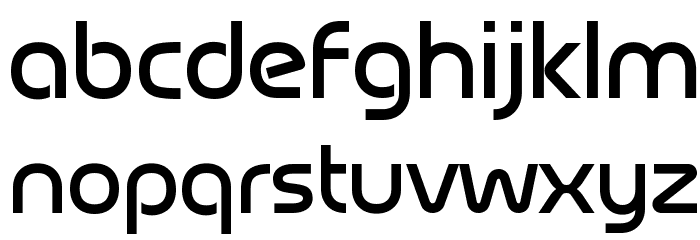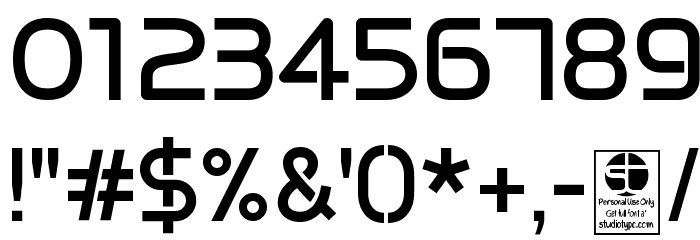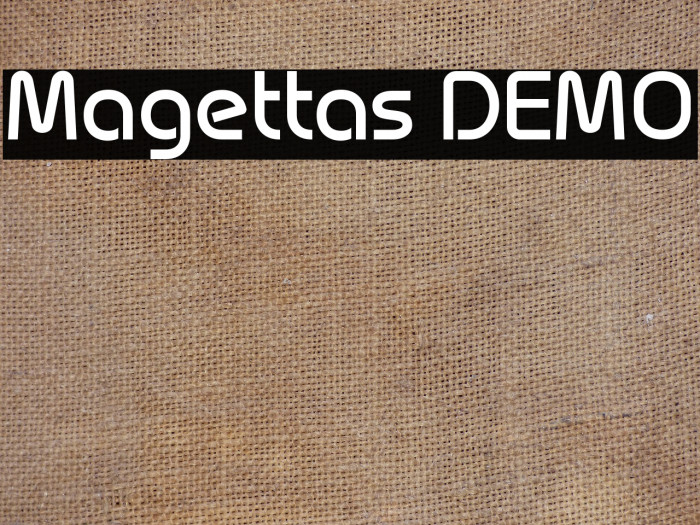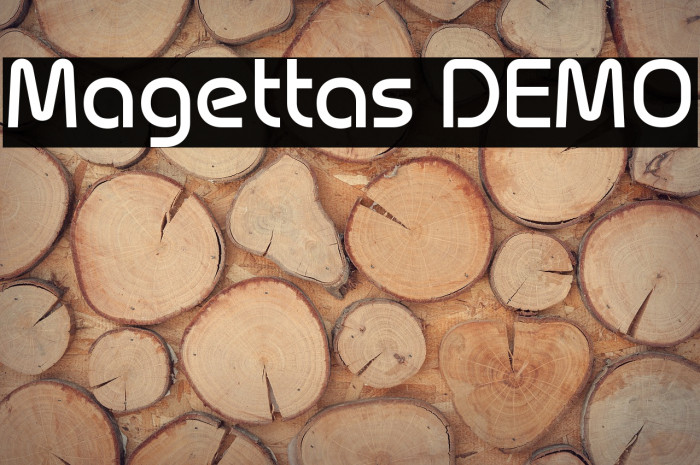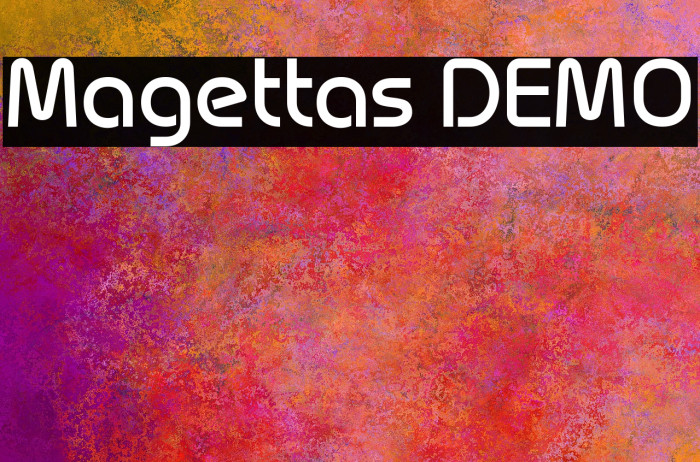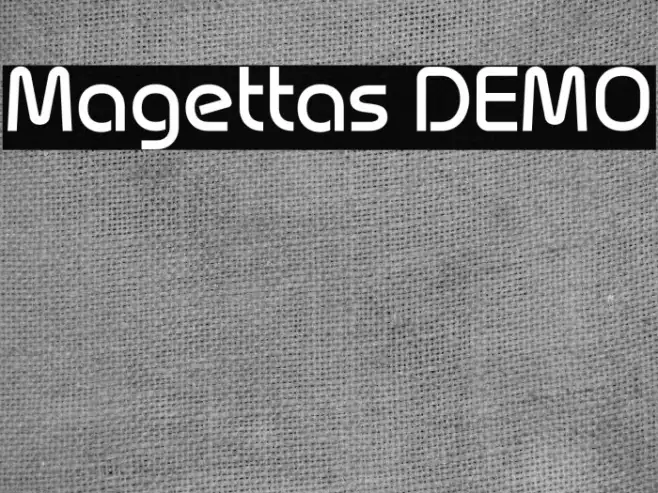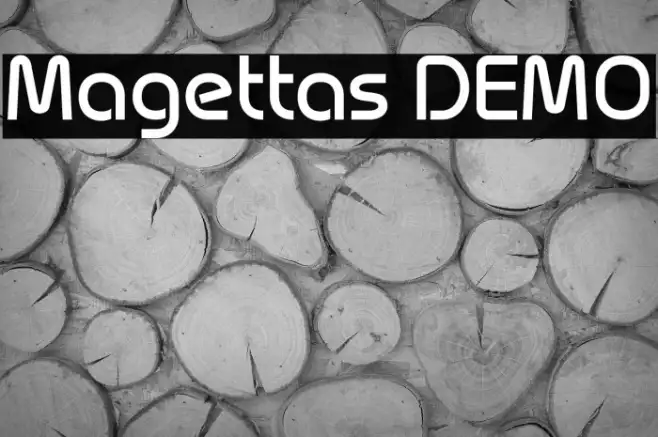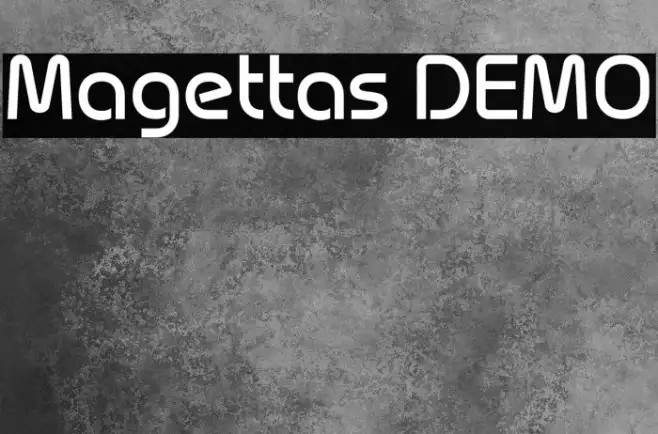
Magettas DEMO Font
This font features a modern and clean design with smooth, rounded edges and a geometric structure. The characters are evenly spaced, providing a balanced and harmonious appearance. The uppercase letters are bold and assertive, while the lowercase letters maintain a consistent style with slightly softer curves. The numerals are clear and legible, making them suitable for various applications. Special characters are included, offering versatility for different design needs. Overall, this font exudes a contemporary and professional vibe, ideal for digital and print media.
A modern, geometric font with smooth, rounded edges and balanced spacing.
- Proposed Projects: Ideal for branding, web design, advertising, and editorial layouts.